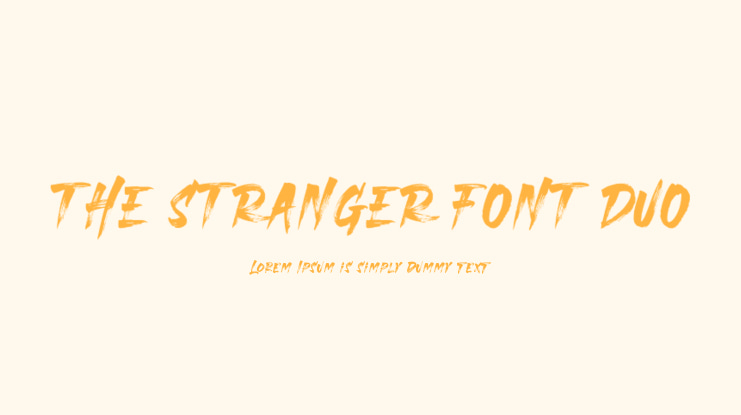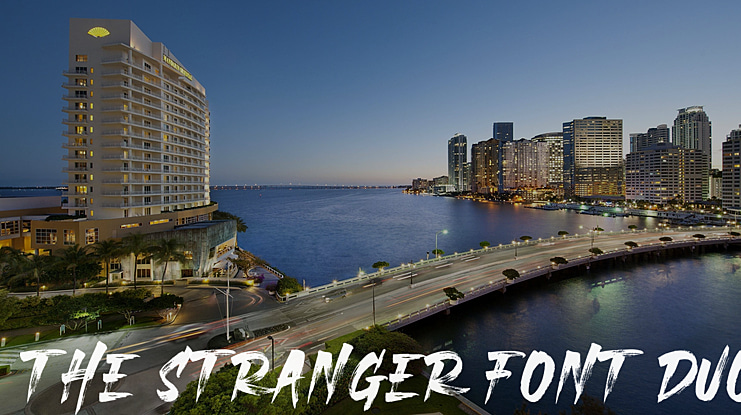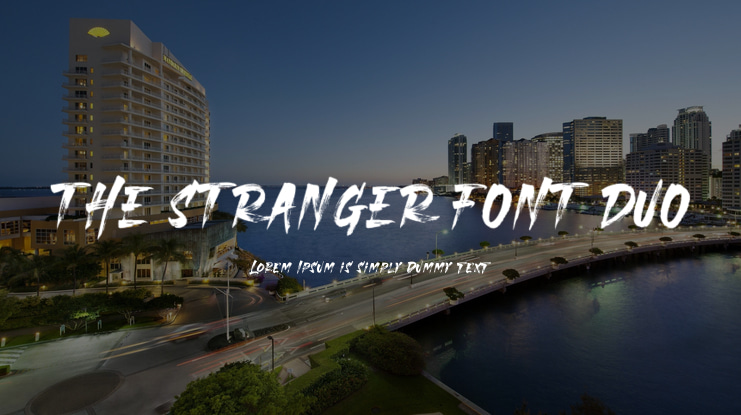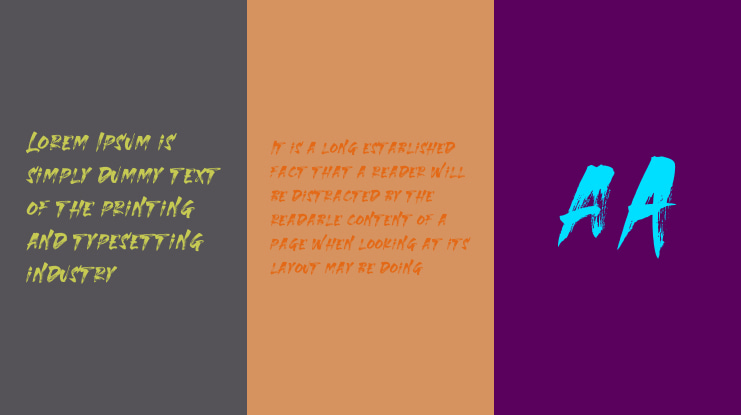
THE STRANGER FONT DUO
Donis Miftahudin
The Stranger is a brush font and combines with sans font. Made with naturally brush. The texture from the brush font will make your design more beautiful and powerful. This font is suitable for any design like branding, quotes, t-shirt printing and etc.
The Stranger Brush
The Stranger Sans
The Stranger Swashes
The Stranger Splatters
Features:
Accents (Multilingual Characters)
12 Alternates
14 Ligatures
52 Extra Swashes
26 Splatters
Numerals and Punctuations (OpenType Standard)